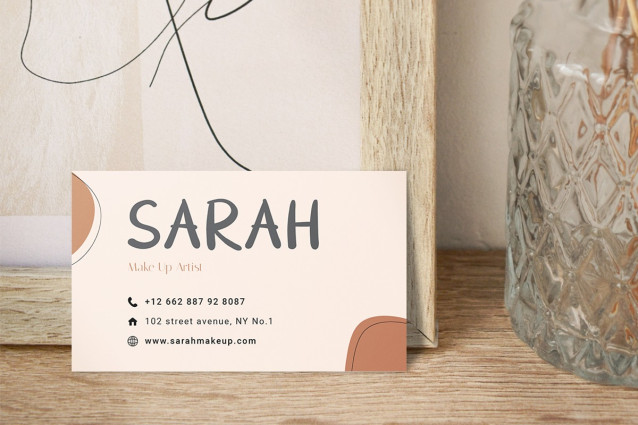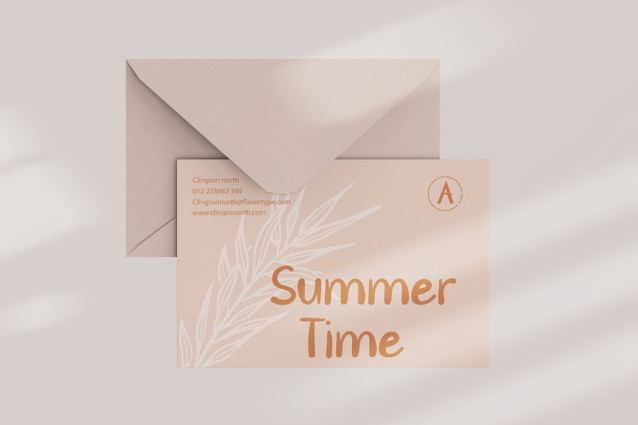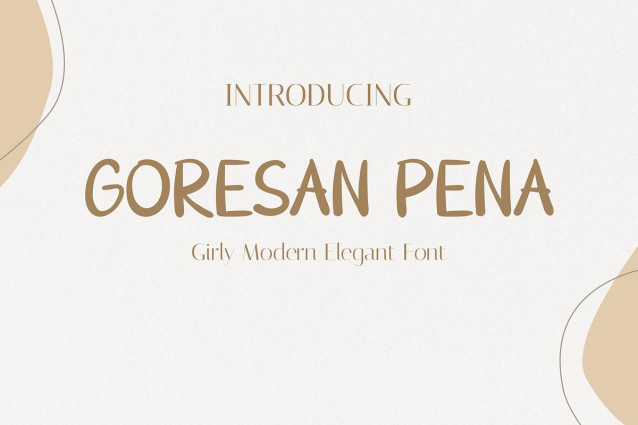
Goresan Pena Font
Goresan Pena beautifully combines modern elegance with a natural, handwritten style. This font truly captures the essence of a personal touch, making it perfect for designs that require warmth, authenticity, and sophistication. With its smooth curves, balanced strokes, and slightly informal feel, Goresan Pena brings a unique character to any creative project.
Moreover, each letter flows organically, reflecting the fluidity of natural handwriting. This quality creates a seamless and aesthetically pleasing visual experience. Its modern yet timeless appeal ensures versatility, allowing it to complement various design aesthetics, from minimalist branding to bohemian-inspired visuals. Whether you use it for branding, invitations, or creative typography, this font enhances readability while adding charm and personality to your text.
Furthermore, Goresan Pena’s handwritten appeal strengthens its connection to human expression. The soft, rounded strokes provide a friendly and approachable vibe, while the well-structured design delivers a professional finish. As a result, this balance between casual elegance and structured refinement makes it ideal for those looking to add sophistication without compromising readability.